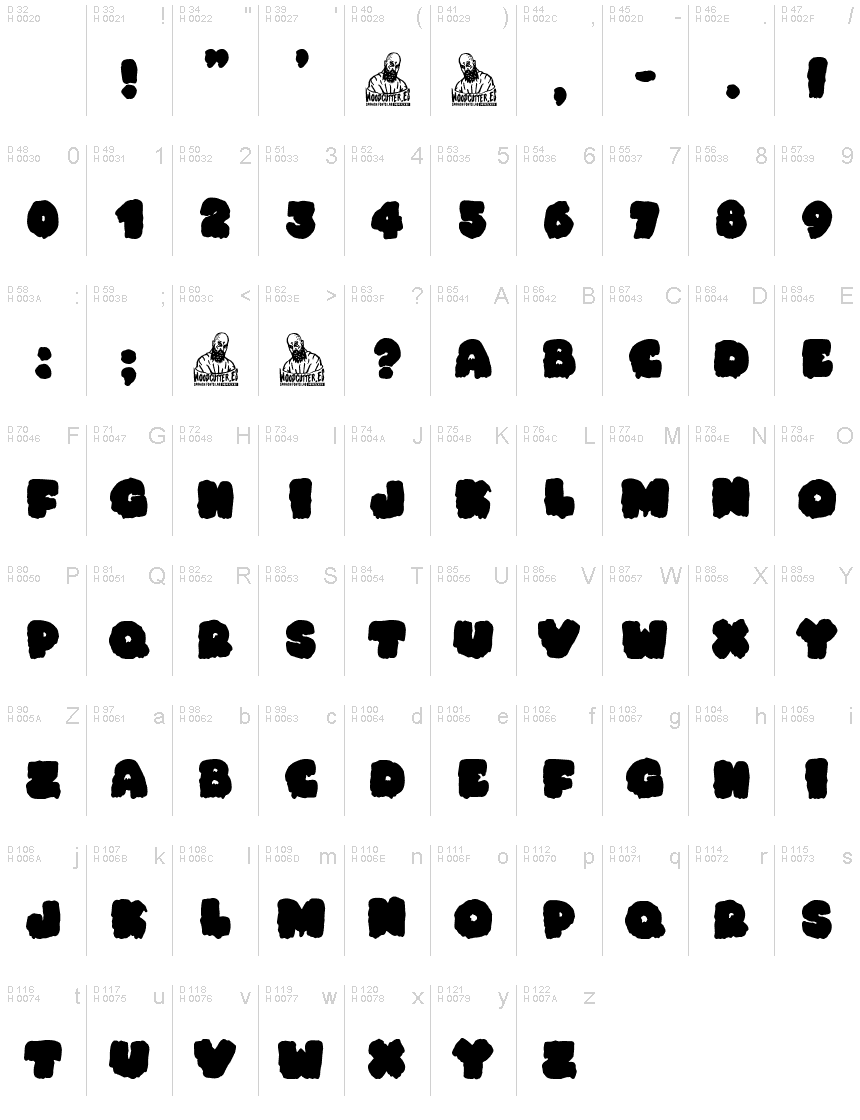
Fat Bloody Summer
Designed by Woodcutter, the Fat Bloody Summer font is a terrifying display typeface that demands attention.
Its extra-bold weight and semi-expanded width create an imposing presence, making it ideal for horror movie posters, haunted house flyers, and Halloween-themed projects. This spine-chilling font adds a touch of fear to any design, making it perfect for creating spooky invitations or eerie book covers.
With its scary style and bold personality, Fat Bloody Summer is sure to send shivers down your spine.